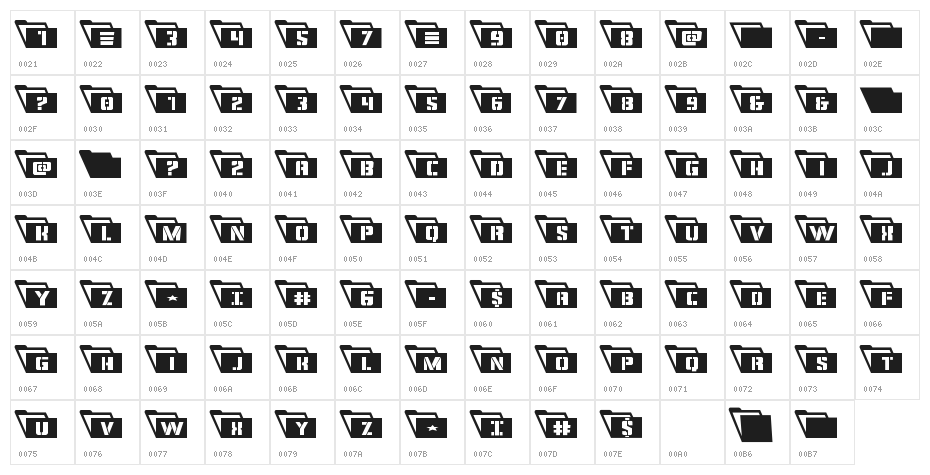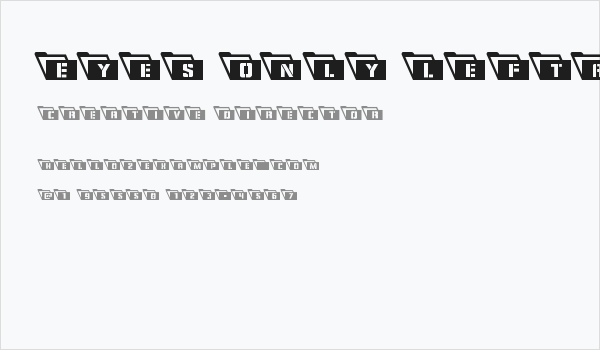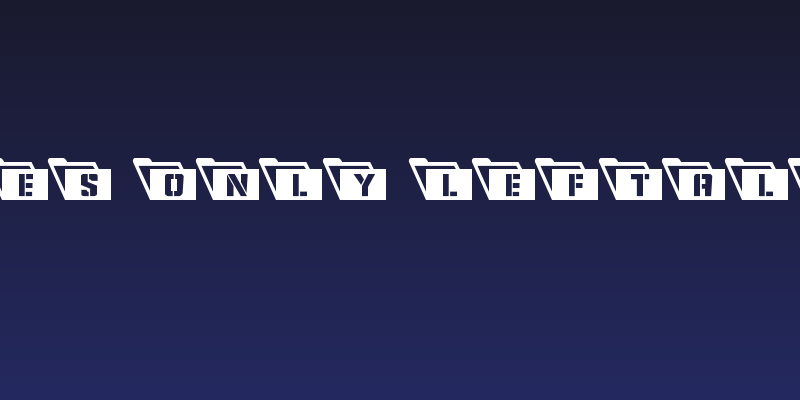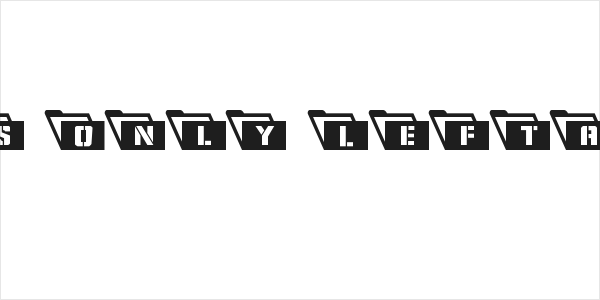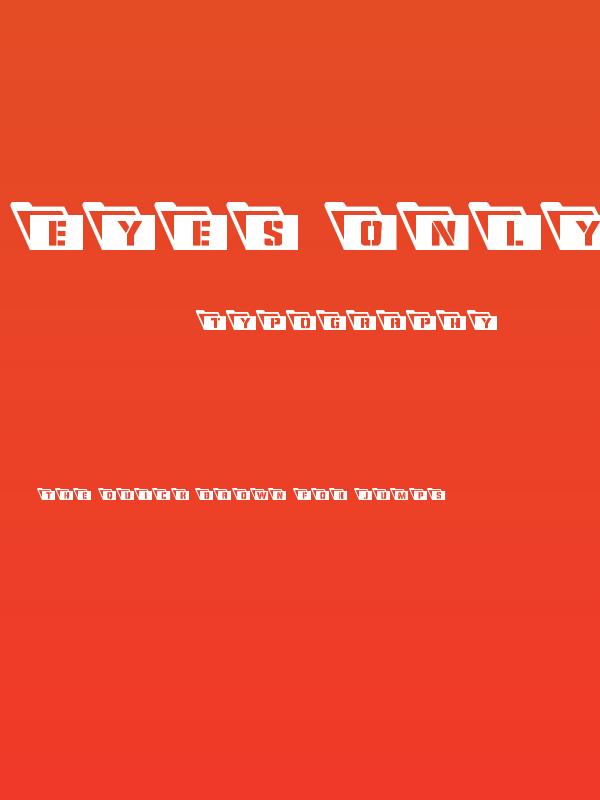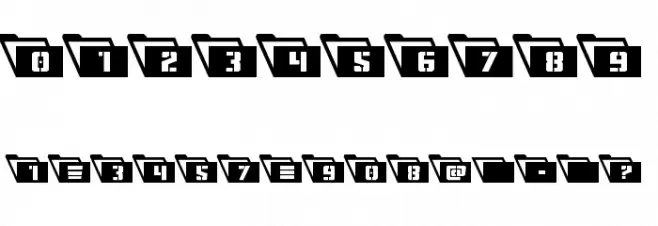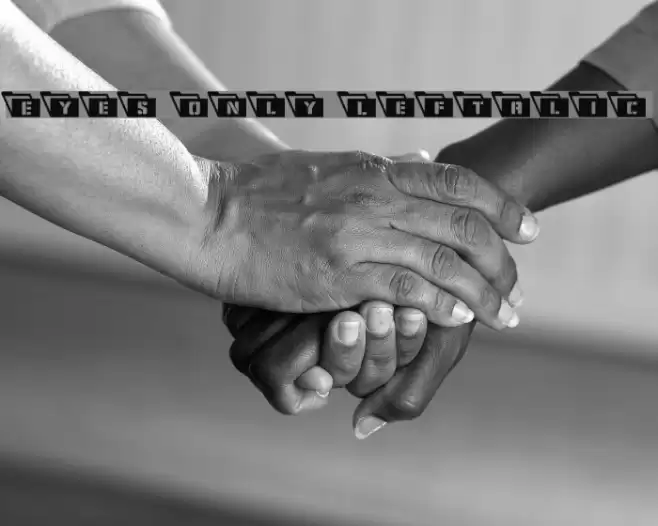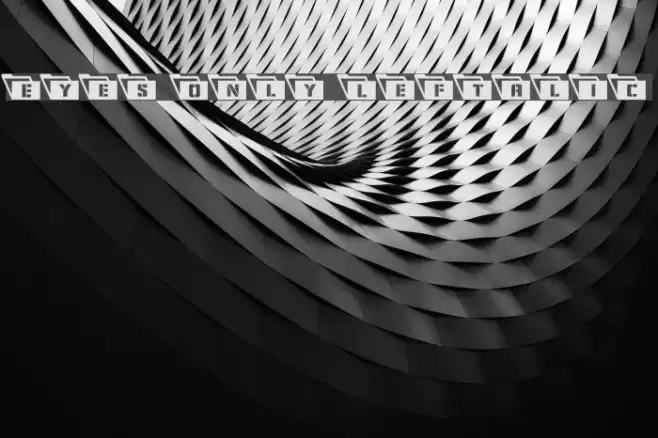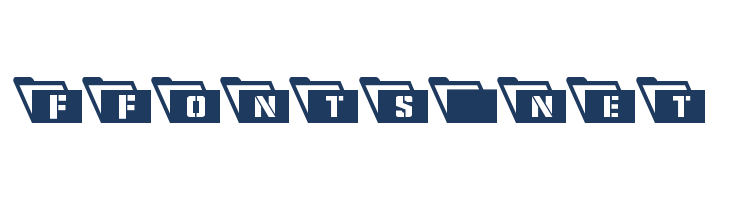
Eyes Only Leftalic Font
This font features a unique, folder-like design where each character is enclosed within a stylized tabbed folder shape. The letters and numbers are bold and blocky, providing a strong visual impact. The font has a distinct leftward slant, giving it an italicized appearance, which adds a dynamic and modern feel. The characters are uniformly spaced within their folder shapes, ensuring consistent readability. This design is particularly eye-catching and would stand out in any project requiring a bold statement.